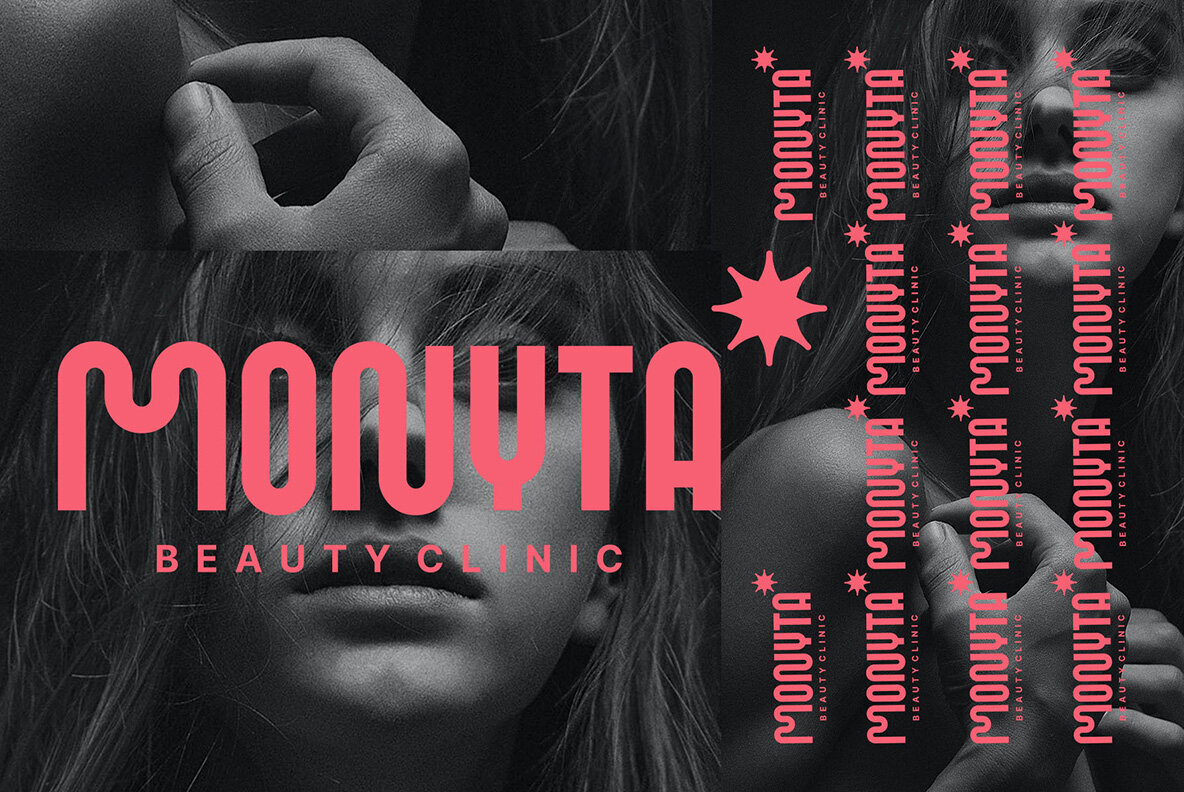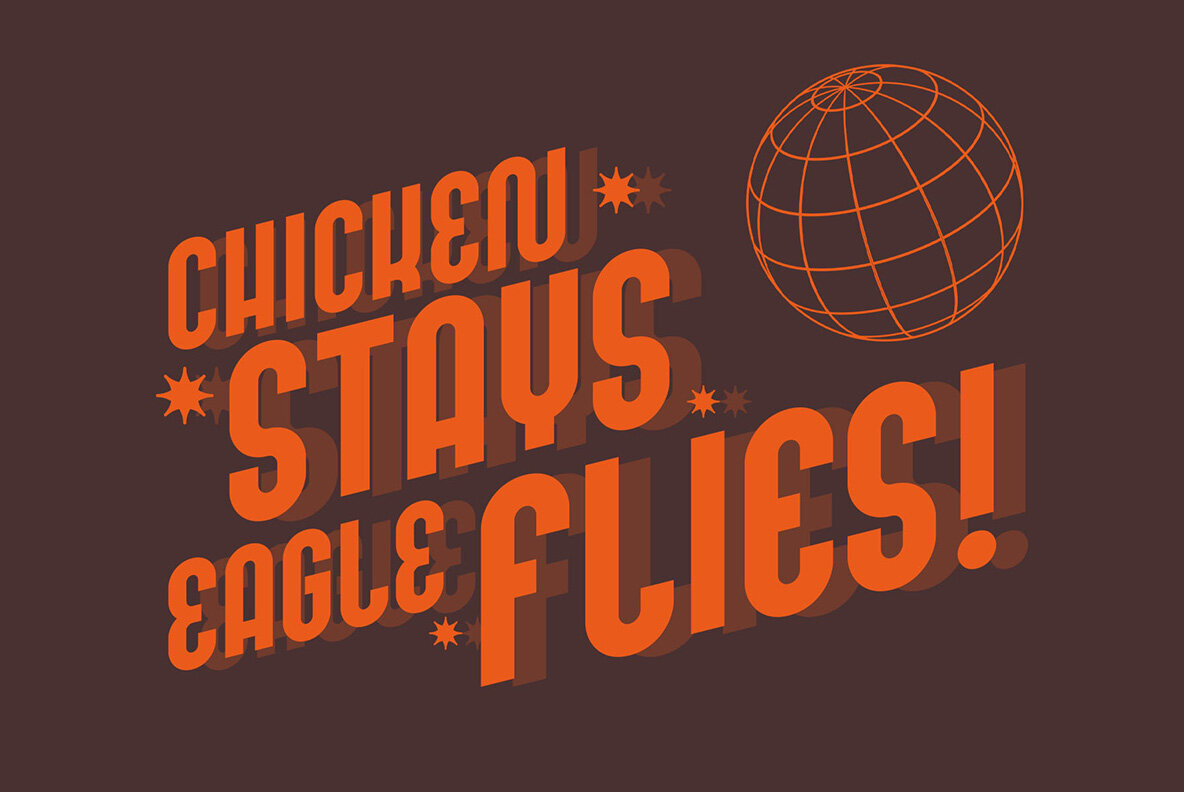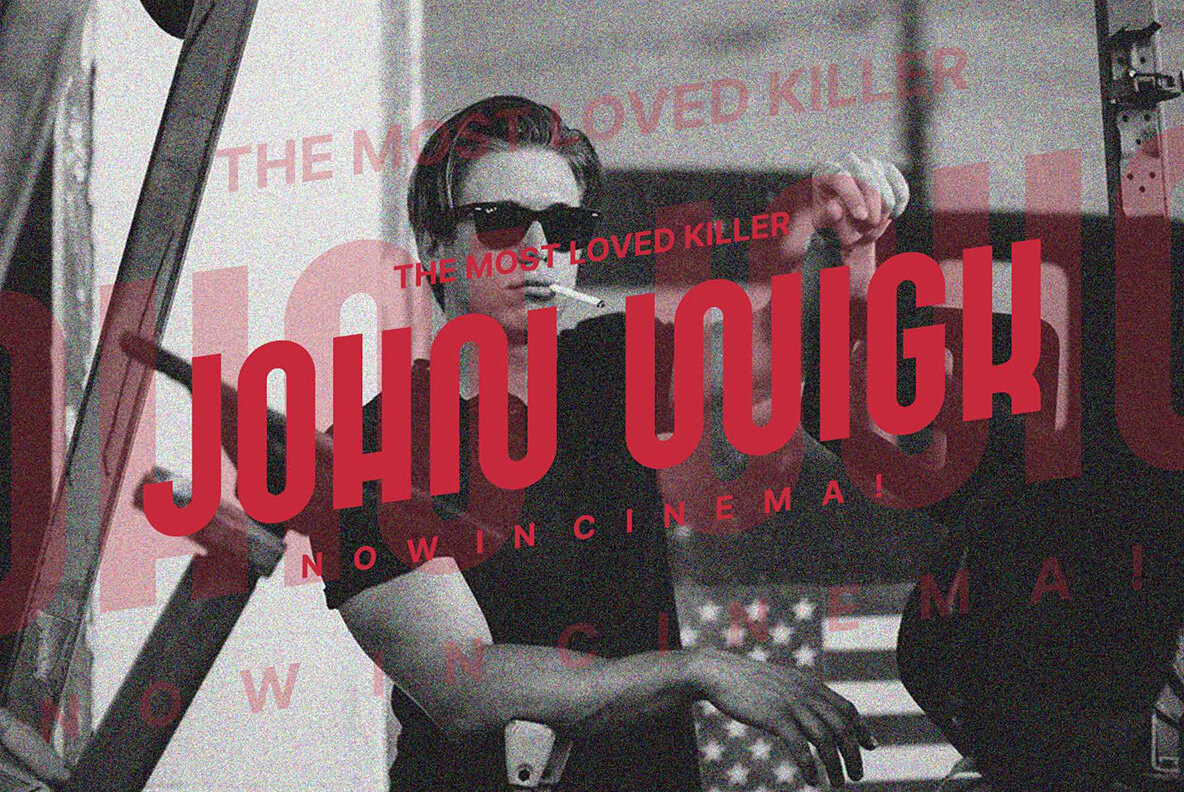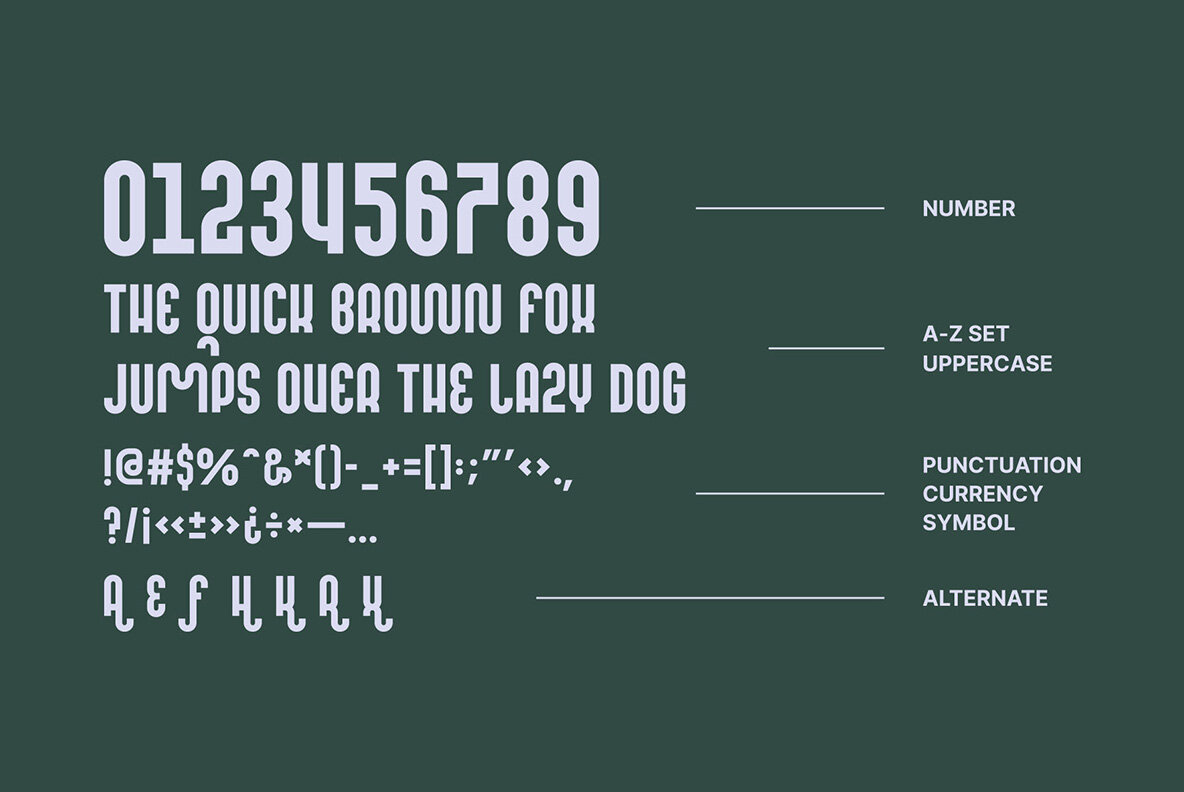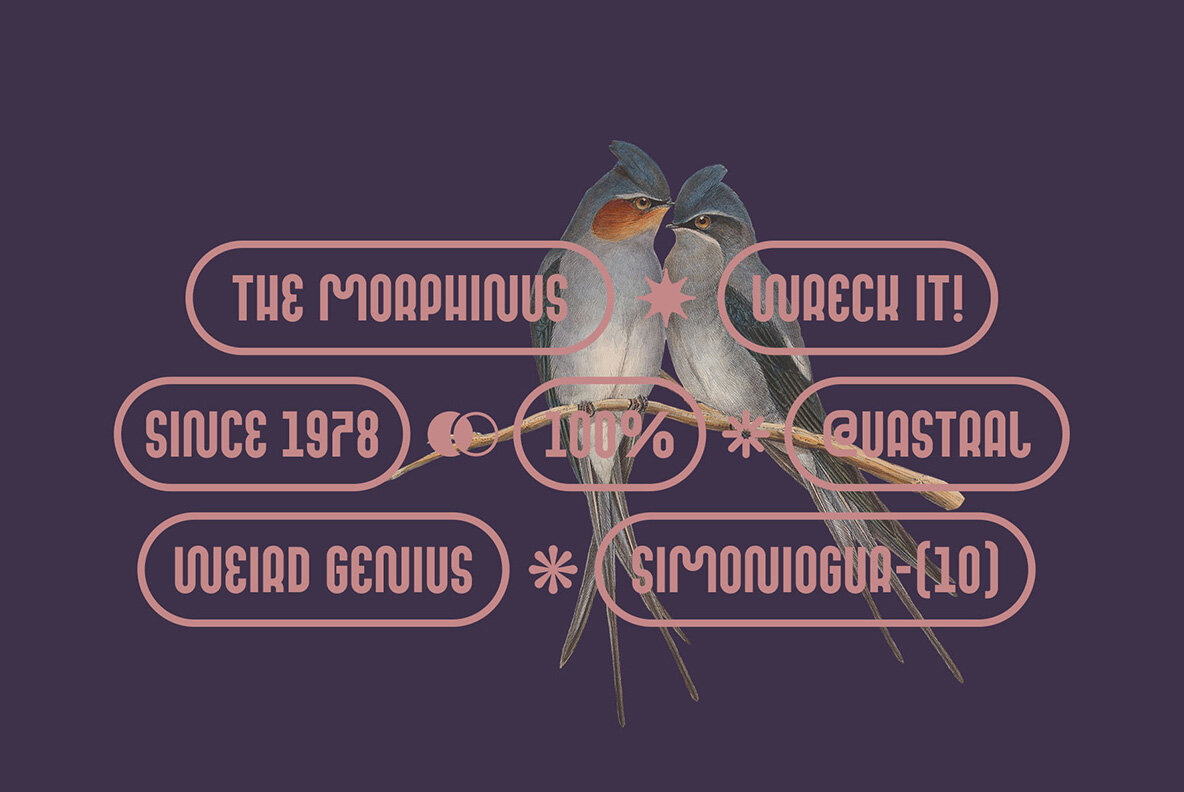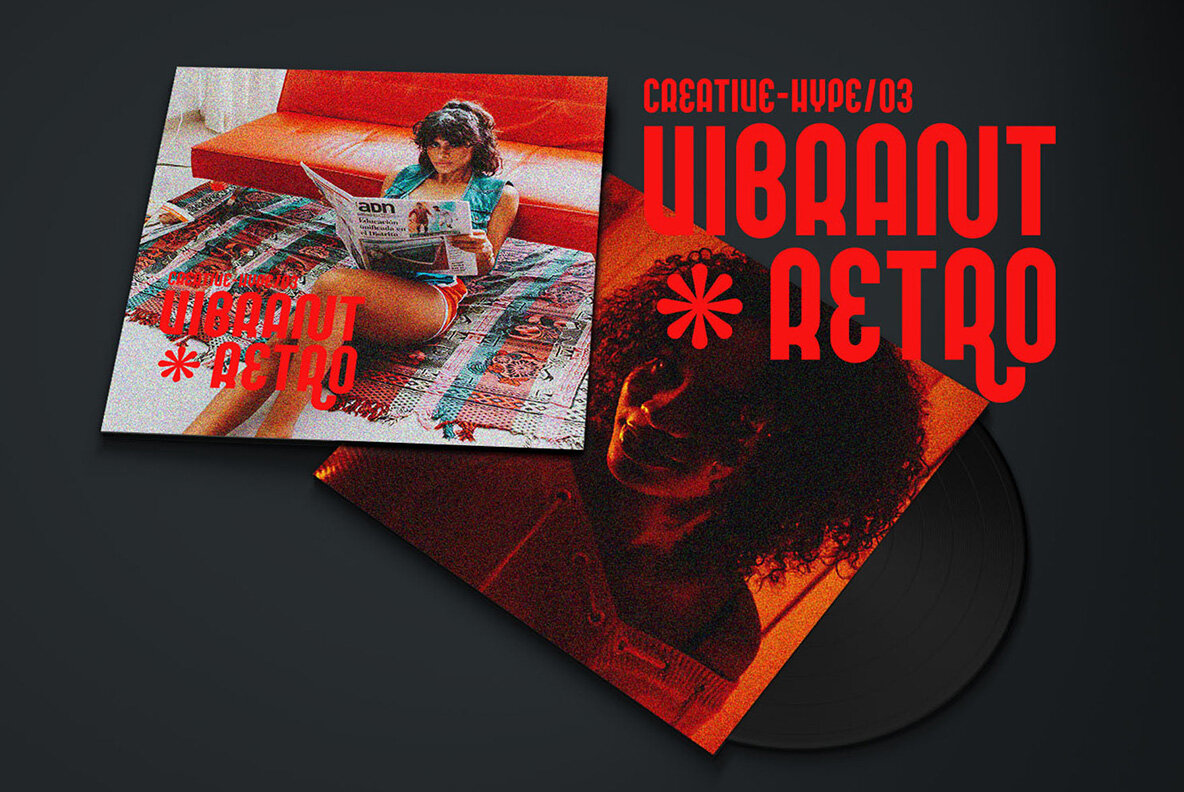
Moqarin Font
Introducing Moqarin, a simple and condensed rounded sans serif font with a playful personality. It showcases a bold and complex nature, designed to shine in both large and small point sizes. Ideal for headlines, billboards, magazines, websites, titles, posters, branding, and logos, this font guarantees that your project will stand out. Explore the included 118 glyphs, uppercase letters, 7 alternate variations, and a range of numerals, punctuation, and symbols. Unleash your creativity with Moqarin and witness its magic firsthand.